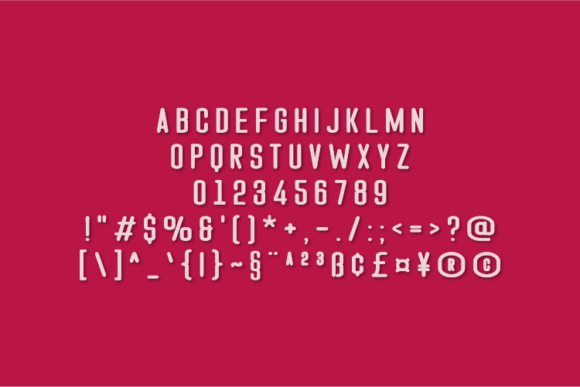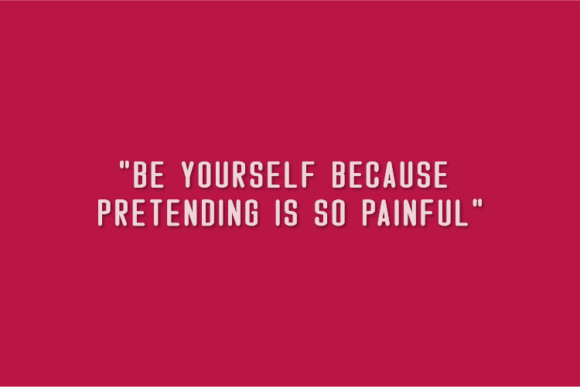
Introducing Boosthink Font: The Ultimate Sans Serif for Modern Designs
In the world of typography, a font can make or break a design. With the right font, your project can stand out, convey the right message, and leave a lasting impression. That’s where Boosthink Font comes in – an all-caps sans serif font that’s versatile, clean, and perfect for a wide range of applications. In this article, we’ll dive into the features, benefits, and uses of Boosthink Font, and explore why it’s a must-have for designers and crafters.
What is Boosthink Font?
Boosthink Font is a modern sans serif font that’s designed to be highly versatile and adaptable. With its smooth and clean lines, and just a touch of contrast, this font works beautifully for logos, branding, web headings, and more. The all-caps design ensures that your text stands out, while the sans serif style provides a clean and minimalist look that’s perfect for modern designs.
Key Features of Boosthink Font
- All-caps design: Boosthink Font is designed to make a statement with its all-caps letters, perfect for headlines, titles, and emphasis.
- Smooth and clean lines: The font features smooth and clean lines that provide a professional and modern look.
- Touch of contrast: A subtle touch of contrast adds depth and visual interest to the font, making it more engaging and dynamic.
- Sans serif style: The sans serif design ensures a clean and minimalist look that’s perfect for modern designs.
- Highly versatile: Boosthink Font can be used in a wide range of applications, from logos and branding to web headings and more.
Benefits of Using Boosthink Font
- Instant recognition: The all-caps design and clean lines of Boosthink Font ensure that your text stands out and grabs attention.
- Professional look: The font’s smooth and clean lines provide a professional and modern look that’s perfect for businesses, brands, and organizations.
- Flexibility: Boosthink Font can be used in a wide range of applications, from digital to print, and from logos to web headings.
- Easy to read: The sans serif design and clean lines ensure that Boosthink Font is easy to read, even at small sizes.
Uses of Boosthink Font
- Logos and branding: Boosthink Font is perfect for creating modern and professional logos, business cards, and branding materials.
- Web headings: The font’s clean lines and sans serif style make it perfect for web headings, titles, and emphasis.
- Print materials: Boosthink Font can be used for a wide range of print materials, from brochures and flyers to posters and banners.
- Signage: The font’s bold and clean design makes it perfect for signage, from storefronts to billboards.
Tips for Using Boosthink Font
- Use it boldly: Boosthink Font is designed to make a statement, so don’t be afraid to use it boldly and at large sizes.
- Experiment with colors: The font’s clean design makes it perfect for experimenting with different colors and gradients.
- Pair it with other fonts: Boosthink Font can be paired with other fonts to create a unique and interesting look.
In conclusion, Boosthink Font is an amazing sans serif font that’s perfect for modern designs. With its smooth and clean lines, all-caps design, and touch of contrast, this font works beautifully for logos, branding, web headings, and more. Whether you’re a designer, crafter, or business owner, Boosthink Font is a must-have for any project. So why wait? Download Boosthink Font today and take your designs to the next level!